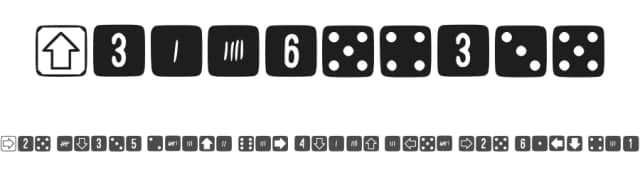
About Littlearrows Font
A simple arrows font made for a KTaNE manual.
Arrows comes in five variants -- filled, empty, striped, dotted, double outlined. The boxed variants are leftover from a different font.